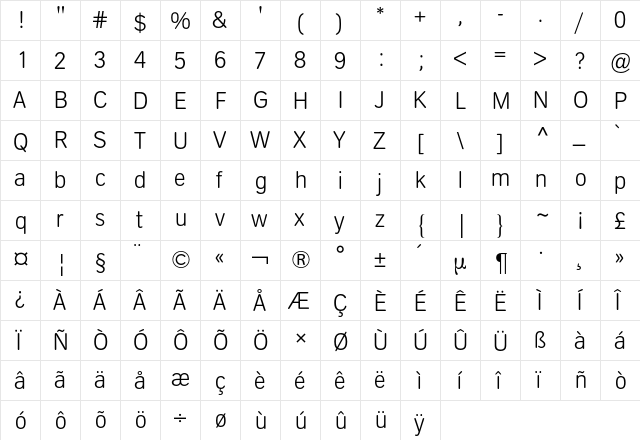
Aral-Type BQ Light Font Preview
Aral-Type BQ Light
Design Context for Aral-Type BQ Typeface
Aral-Type BQ offers clean, dependable letterforms without strong stylistic allegiance, making it a practical choice for designers who need flexibility. Its slender proportions lend an understated elegance to any composition.